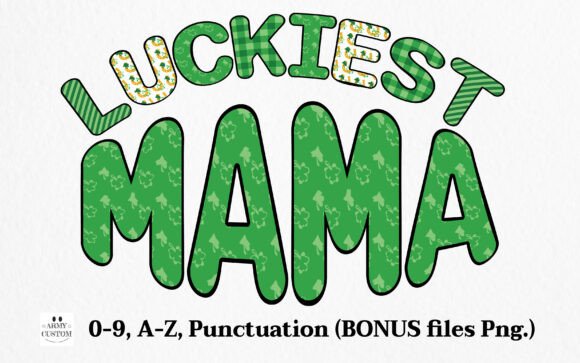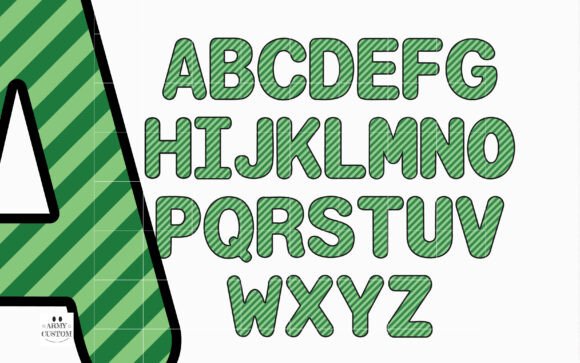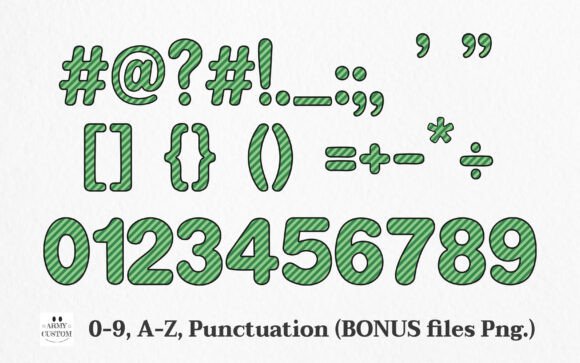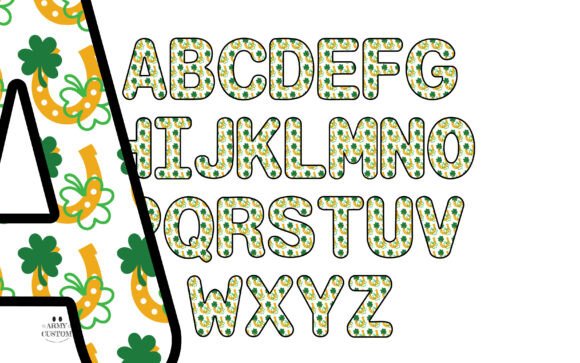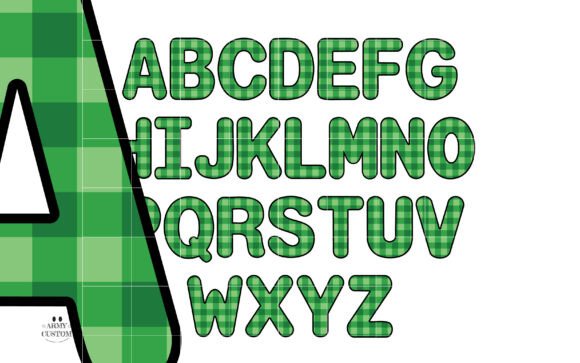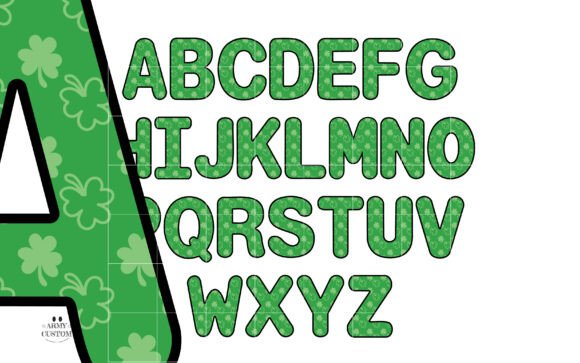
Army Lucky Font: Celebrate St. Patrick’s Day with a Vibrant and Festive Typeface
Are you looking for a unique and eye-catching font to make your St. Patrick’s Day designs stand out? Look no further than the Army Lucky Font, a vibrant and festive typeface that’s perfect for celebrating the luck of the Irish. In this article, we’ll explore the features and benefits of this amazing font, and show you how to make the most of it in your designs.
Introducing the Lucky OTF Font
The Lucky OTF font is a one-of-a-kind typeface that’s specifically designed for St. Patrick’s Day and beyond. This font features thick, bubbly letterforms filled with a variety of luck-themed patterns, including green shamrocks, golden horseshoes, and playful chevron stripes. The result is a font that’s not only fun and festive but also incredibly versatile.
A Toolkit for Creating Festive Designs
The Lucky OTF font is more than just a font – it’s a toolkit for creating professional-grade holiday graphics. Because it comes pre-loaded with intricate patterns, you can create stunning designs in no time. Whether you’re making t-shirt designs, classroom decorations, or high-energy party invitations, this font has got you covered.
Perfect for Sublimation Projects and Digital Scrapbooking
One of the best things about the Lucky OTF font is its compatibility with sublimation projects and digital scrapbooking. This font works perfectly with these techniques, bringing a sense of joy and celebration to every word. Imagine being able to create vibrant, full-color designs that pop off the page – with the Lucky OTF font, it’s easy!
Designing for St. Patrick’s Day and Beyond
The Lucky OTF font is specifically designed for St. Patrick’s Day, but it’s also versatile enough to use for other celebrations and events. Whether you’re designing for a school festival, a local pub’s holiday event, or just want to add some luck-themed flair to your designs, this font is the perfect choice.
Tips for Using the Lucky OTF Font
To get the most out of the Lucky OTF font, here are a few tips to keep in mind:
• Experiment with different colors and patterns to create unique and eye-catching designs.
• Use the font to create custom t-shirt designs, posters, and flyers for St. Patrick’s Day events.
• Take advantage of the font’s sublimation capabilities to create stunning full-color designs.
• Don’t be afraid to get creative and try out new and innovative design ideas!
The Army Lucky Font is a game-changer for designers and crafters looking to add some luck-themed flair to their St. Patrick’s Day designs. With its vibrant and festive typeface, intricate patterns, and compatibility with sublimation projects and digital scrapbooking, this font is the ultimate toolkit for creating professional-grade holiday graphics. So why wait? Get your hands on the Lucky OTF font today and start celebrating the luck of the Irish in style!
• Vibrant and festive typeface with luck-themed patterns
• Thick, bubbly letterforms filled with green shamrocks, golden horseshoes, and playful chevron stripes
• Pre-loaded with intricate patterns for easy design creation
• Perfect for sublimation projects and digital scrapbooking
Whether you’re a designer, crafter, or DIY enthusiast, the Lucky OTF font is sure to bring a touch of luck and magic to your St. Patrick’s Day designs. So go ahead, take a chance, and get ready to celebrate the luck of the Irish in style!